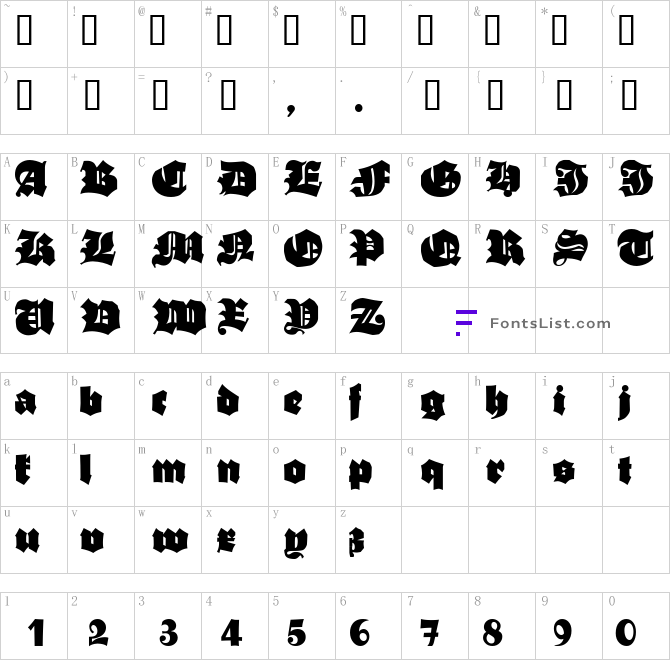
- Font Name:AsgardianWars
AsgardianWars-Black.ttf is a very beautiful artistic font, AsgardianWars-Black.ttf is widely used in the design and printing of various books and pictures,AsgardianWars-Black.ttf has a strong visual impact,AsgardianWars-Black.ttf is a commonly used font in newspapers, magazines and books, and is used in posters, e-commerce Poster design, store design, logo design, font design and other fields.AsgardianWars-Black.